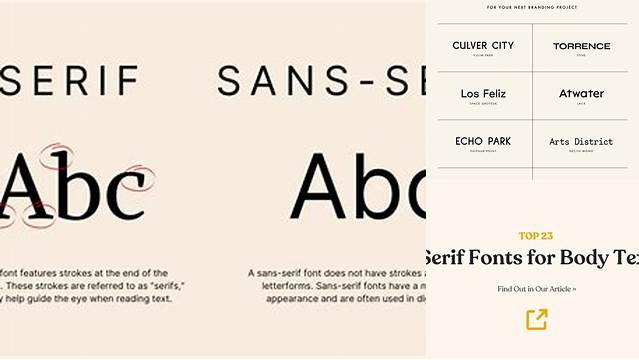
Best Free Sans Serif Fonts For Readable Body Text
Choosing the right font can make all the difference when it comes to the readability and overall aesthetic of your body text. And let's be real, nobody wants to squint and struggle through paragraphs, right? That's where sans serif fonts come in! These fonts, known for their clean and modern look, ditch the little decorative strokes (serifs) at the end of letters, making them super legible, especially in digital formats. But with so many options out there, finding the best free sans serif fonts can feel like searching for a needle in a haystack. No worries, though! We've got your back. This guide is packed with some fantastic choices to elevate your design game. So, let's dive in and discover some amazing fonts that won't cost you a penny!
1. The Power of Readability: Why Choose Sans Serif?
Before we jump into specific fonts, let's quickly chat about why sans serif fonts are often the go-to choice for body text. Think about it: when you're reading a long article or a webpage, you want the words to flow effortlessly, right? Sans serif fonts, with their clean lines and simple shapes, help make that happen. They tend to look less cluttered, especially on screens, which means your eyes can glide smoothly across the text. This is crucial for keeping readers engaged and preventing eye strain. Plus, sans serif fonts often have a contemporary and approachable vibe, making them perfect for a wide range of projects, from websites and blog posts to presentations and brochures. It's all about creating a positive reading experience, guys!
2. Open Sans: A Crowd Favorite
Open Sans is seriously a superstar in the world of free sans serif fonts. Designed by Steve Matteson, this font is known for its neutral yet friendly appearance. It's super versatile, meaning it works well in a ton of different contexts. Imagine using it for your website's body text, then also using it for headings and even print materials – that's the magic of Open Sans! What makes it so great? Well, it's highly legible at various sizes, has a wide range of weights and styles, and just generally looks clean and modern. Think of it as the reliable friend you can always count on. Open Sans is definitely a must-have in your font arsenal, especially if you're looking for something that's both professional and easy to read.
3. Lato: A Touch of Warmth
If you're after a sans serif font that feels a bit warmer and friendlier than some of the more neutral options, Lato might just be your perfect match. Designed by Łukasz Dziedzic, Lato has semi-rounded details that give it a softer, more approachable feel. This makes it fantastic for body text where you want to create a connection with your readers. Picture it on a blog, a company website, or even a book – Lato brings a touch of personality without sacrificing readability. Plus, it's a Google Font, which means it's super easy to use on the web. Guys, seriously, give Lato a try if you want your text to feel inviting and engaging!
4. Roboto: The Android Champion
You've probably seen Roboto before, even if you didn't realize it! This font is the default typeface for Android, so it's basically everywhere in the digital world. Designed by Christian Robertson, Roboto has a dual nature: it's geometric yet friendly, with natural reading rhythm. This makes it an excellent choice for body text on screens. Roboto's clean lines and open forms contribute to its readability, even at smaller sizes. Plus, it comes in a wide range of weights, giving you lots of flexibility in your design. Whether you're working on a website, an app, or a presentation, Roboto is a solid and dependable option for clear and engaging text.
5. Montserrat: Modern Geometric Elegance
If you're looking for a sans serif font that oozes modern elegance, Montserrat is where it's at! Inspired by the urban typography of Buenos Aires, this font has a distinct geometric style that's both eye-catching and highly legible. Montserrat's strong, clean lines make it a fantastic choice for headings, but it also works surprisingly well for body text, especially when you want to add a touch of sophistication. Think sleek websites, stylish brochures, or even invitations – Montserrat can elevate your design with its contemporary flair. Guys, if you want a font that's both modern and readable, Montserrat is a total winner!
6. Raleway: A Stylish Choice for Body Text
Raleway started as a display font, meaning it was originally designed for headings and larger text sizes. But guess what? It's also a fantastic option for body text, especially if you're looking for a font with a bit more personality. Raleway has a distinctive, elegant style, with slightly elongated letterforms that give it a sophisticated look. It's a great choice for projects where you want to strike a balance between readability and visual interest. Imagine using it on a fashion blog, a design portfolio, or a website for a creative agency – Raleway can help you create a unique and stylish reading experience. Just be sure to choose a weight that's comfortable for longer passages of text. This free sans serif font can truly make your text shine!
7. PT Sans: A Classic Option
PT Sans is part of the Public Type family, designed for use in Russian Cyrillic and Latin alphabets. But don't let that intimidate you! This font is incredibly versatile and works beautifully for a wide range of projects. PT Sans has a clean, classic look that's both legible and approachable. It's a solid choice for body text, especially when you want a font that feels timeless and professional. Think about using it for reports, articles, or even books – PT Sans delivers a clear and comfortable reading experience. Plus, because it was designed with both Cyrillic and Latin alphabets in mind, it's a great option if you need a font that supports multiple languages. PT Sans is a truly reliable and versatile choice.
8. Source Sans Pro: Adobe's Gift to Designers
Source Sans Pro is Adobe's first open-source typeface, and it's a real gem for designers. Designed by Paul D. Hunt, this font is specifically created to work well in user interfaces, making it a fantastic choice for websites, apps, and other digital projects. Source Sans Pro has a clean, simple design that's highly legible, even at small sizes. It also comes in a wide range of weights, giving you lots of flexibility in your design. Whether you're working on a complex website or a simple blog post, Source Sans Pro can help you create a polished and professional look. Guys, if you're after a free sans serif font that's specifically designed for digital readability, Source Sans Pro is definitely worth checking out!
9. Nunito: Rounded and Friendly
If you're aiming for a friendly and approachable vibe, Nunito is a fantastic sans serif font to consider. What sets Nunito apart is its rounded letterforms, which give it a soft and inviting feel. This makes it perfect for projects where you want to connect with your audience on a personal level. Think websites for kids, health and wellness blogs, or even friendly marketing materials – Nunito can add a touch of warmth and personality to your text. It's also highly legible, making it a great choice for body text. Plus, it's a Google Font, which means it's super easy to use online. So, if you want your text to feel welcoming and engaging, Nunito is a total winner!
30. The Power of Typography in Branding
Finally, let's talk about the power of typography in branding. Your choice of font can say a lot about your brand's personality and values. A free sans serif font that's clean and modern can convey a sense of innovation and professionalism, while a more rounded and friendly sans serif can create a warm and approachable vibe. Think about your target audience and the message you want to send. Your font should be a reflection of your brand's identity. Consider using a consistent font across all your branding materials, from your website and logo to your business cards and social media graphics. This will help you create a strong and recognizable brand presence. So, don't underestimate the power of typography – it's a crucial element of your brand's overall image!